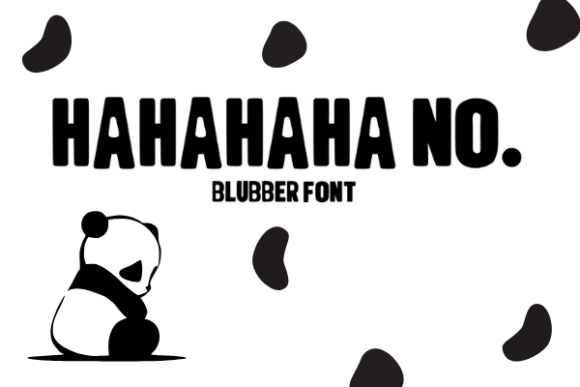
Discover the Fun and Funky World of Blubber Font
Have you ever been working on a design project and suddenly, a burst of creativity strikes? The ideas start flowing, and before you know it, you’re envisioning an entire world of vibrant colors, bold typography, and playful graphics. This is exactly what happened when designers stumbled upon the Blubber Font – a fun and cool all-caps display font that’s reminiscent of all things comic.
With its quirky and energetic vibe, Blubber Font is perfect for designers looking to add a touch of whimsy to their projects. Whether you’re working on a comic book, a children’s book, or even a graphic novel, this font is sure to bring your designs to life. Its versatility makes it valuable for designers who want to create eye-catching headlines, titles, and graphics that stand out from the crowd.
- Unique Characteristics: Blubber Font features a unique blend of playful and elegant styles, making it suitable for various design applications, from children’s books to fashion branding.
Overall, I’m impressed with the Blubber Font’s quirky charm and playful personality. It’s perfect for designers who want to add a touch of whimsy to their projects.
- ✨ Unique character shapes and letterforms that make it stand out from more traditional fonts
- ✨ Excellent for use in children’s books, educational materials, or any project that requires a lighthearted tone
- ✨ Supports a wide range of languages, making it a great option for international projects
- ⚠️ May not be the best choice for formal or professional projects, as it can come across as too playful or immature
- ⚠️ Some letterforms may be difficult to read at smaller font sizes, which could impact readability
- ⚠️ Limited support for certain font styles, such as italics or bold
Overall, I think the Blubber Font is a great addition to any designer’s toolkit. While it may not be suitable for every project, it’s perfect for those that require a fun and playful touch.
The Blubber Font is perfect for:
- Children’s book illustrations.
- Playful advertisements.
- Whimsical presentations.
Remember to use the Blubber Font in moderation to avoid overwhelming your design.